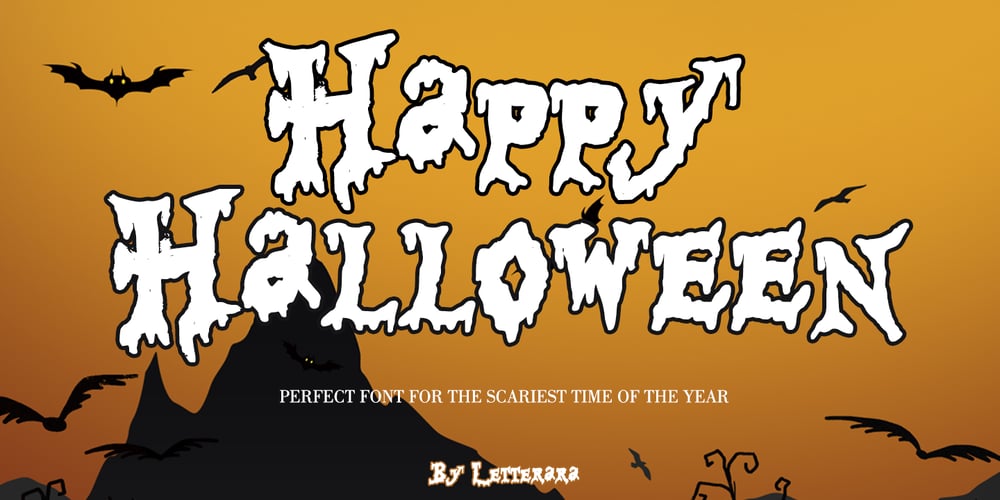
Happy Halloween Font Family was designed by Thomas Aradea and published by Letterara. Happy Halloween contains 1 styles and family package options. Happy Halloween is the perfect font for the scariest time of the year. Inside the font, you will not only find stunning letters to create Halloween decorations.